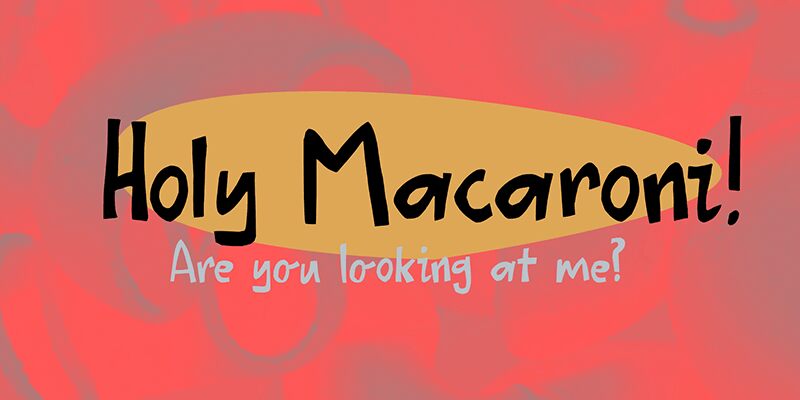
Holy Macaroni font by David Kerkhoff is a display comic font with a hand-drawn aesthetic, casual appearance, and irregular shapes. The design sets a fun mood with a modern vibe that can entertain audiences of different ages.
Let your projects have that playful side and use this free display font for comics, children’s books, magazines, logos, restaurant menus, ads, posters or printed publications.